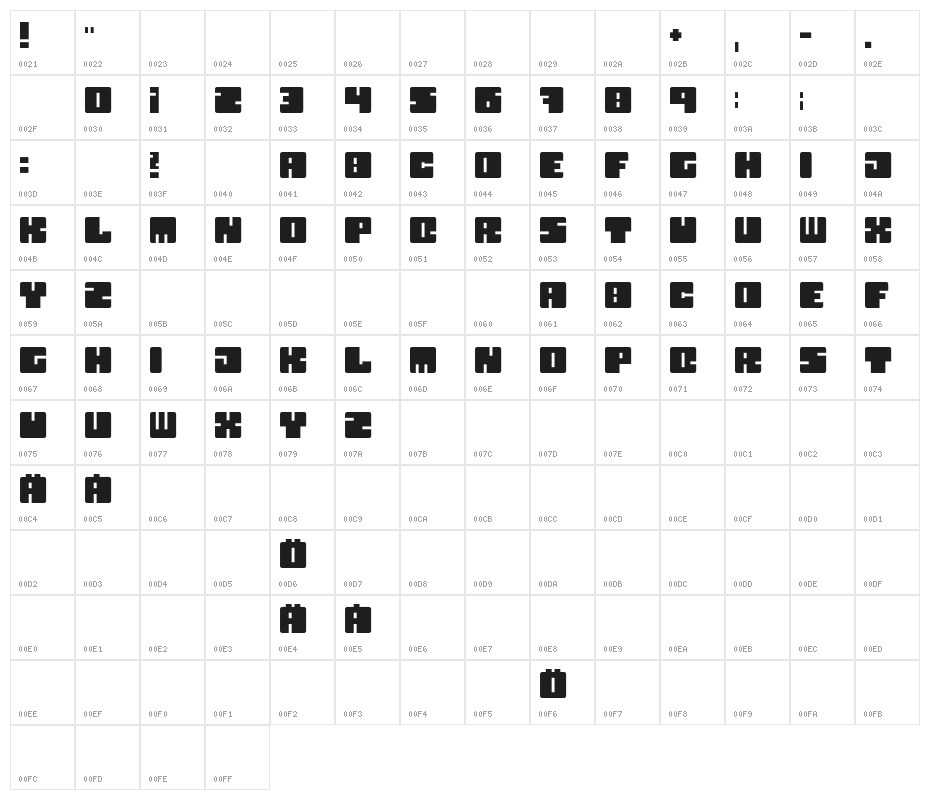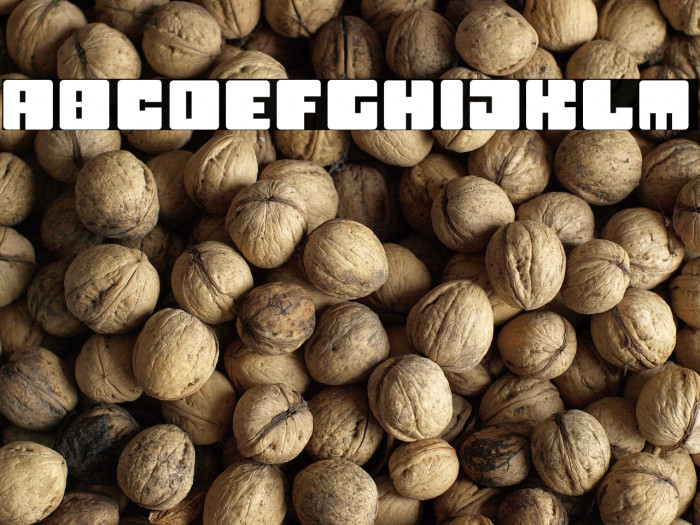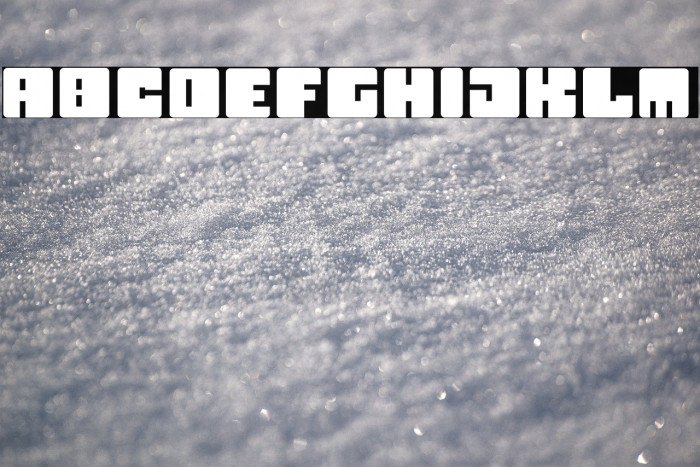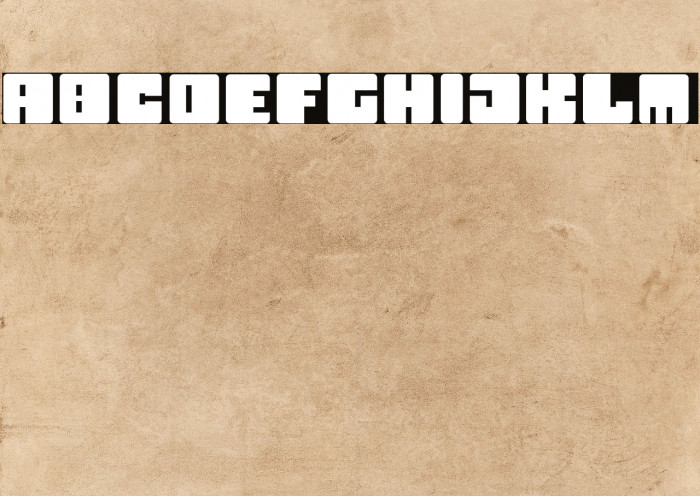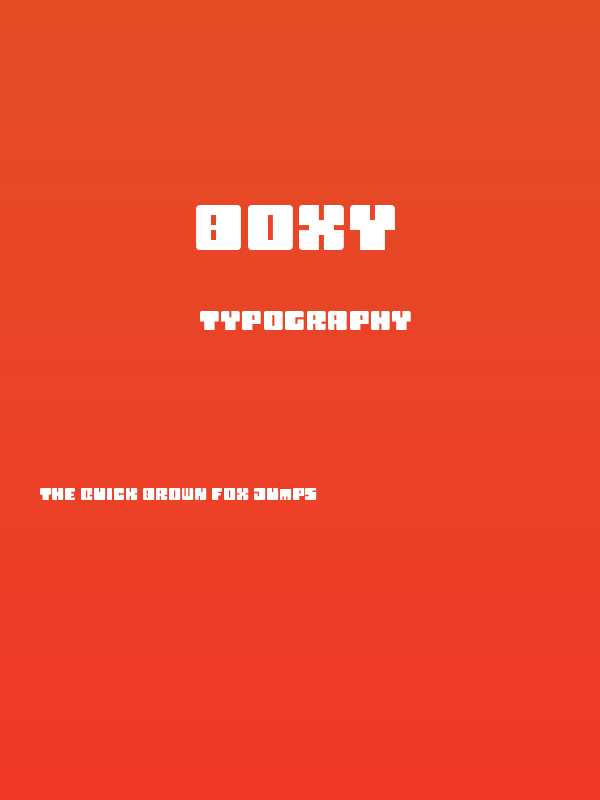
Boxy Font
Boxy Description
This font features a bold, geometric design with a distinctly blocky appearance. Each character is crafted with uniform thickness, creating a strong and impactful visual presence. The edges are sharply defined, contributing to a modern and industrial aesthetic. The uppercase and lowercase letters maintain a consistent style, with minimal variation in width and height. Numbers and special characters are designed to match the boldness and geometric nature of the alphabet, ensuring a cohesive look across all glyphs. This font is ideal for projects that require a strong, assertive typeface with a contemporary edge.